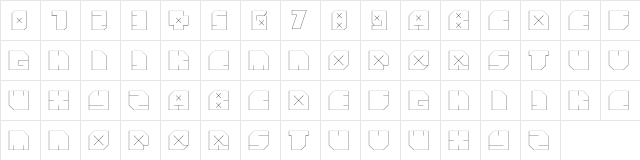
andrefist Medium (normal)
Design Context for andrefist Typeface
andrefist is a composed and adaptable typeface that performs quietly and consistently across a wide range of design contexts.